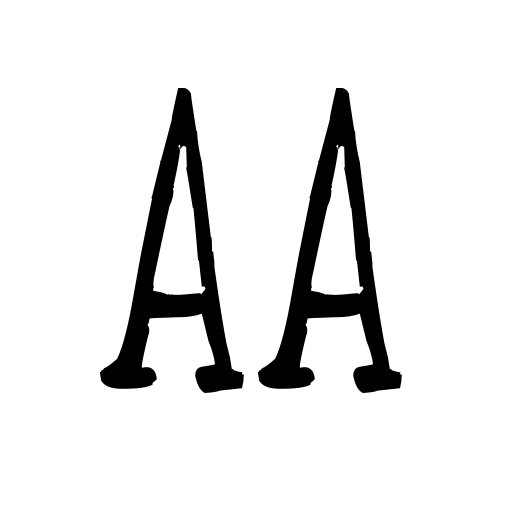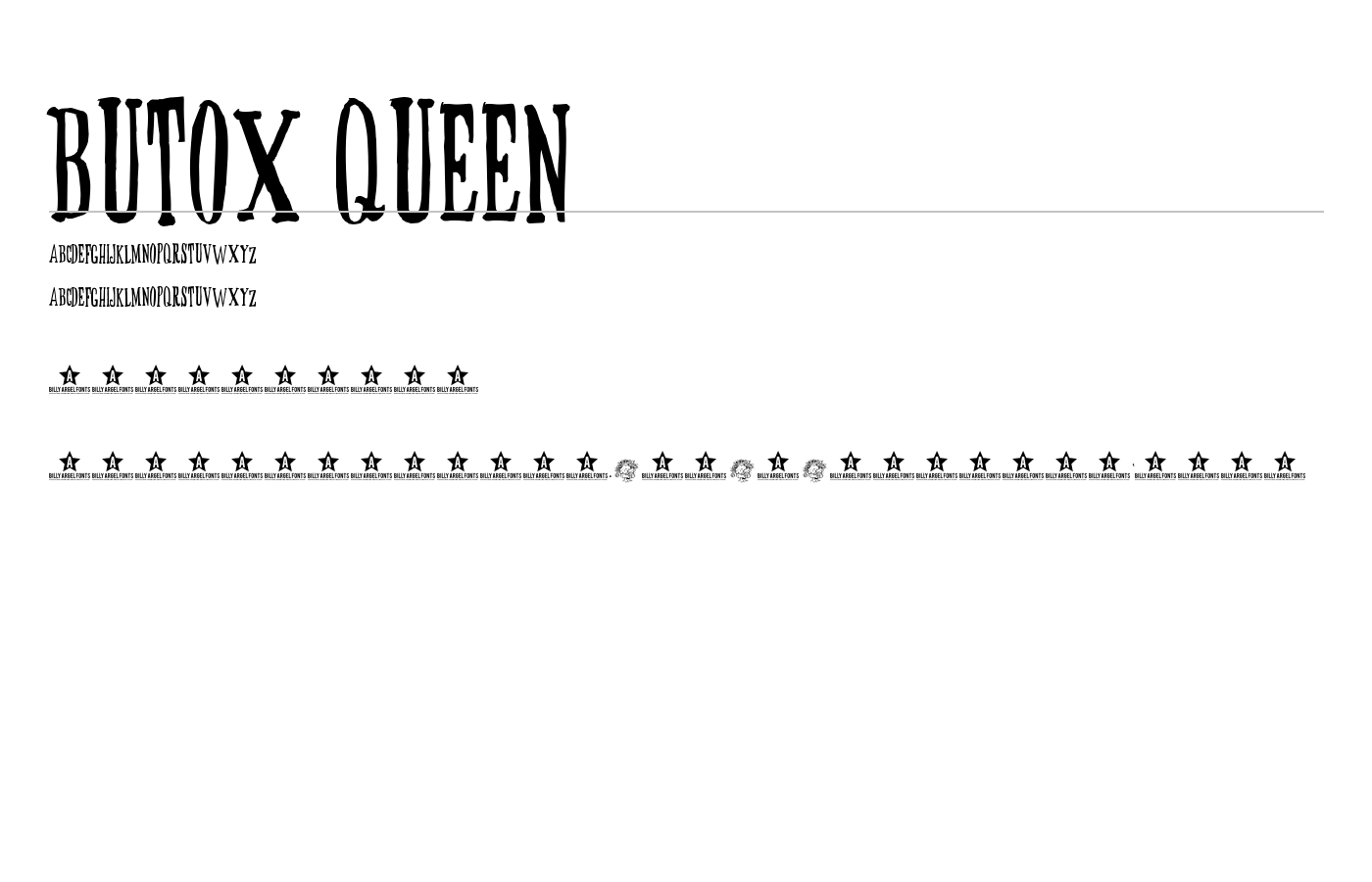
Butox Queen is a tall, condensed serif font with a bold, vintage character reminiscent of old western or circus posters. Its exaggerated vertical strokes and slightly rough edges give it a handcrafted, rustic feel, making it ideal for eye-catching headlines, branding, and designs that want to evoke a nostalgic or dramatic mood. This font works best in display settings where its unique style can shine and create a strong visual impact.
BUTOX QUEEN Font
About BUTOX QUEEN Font